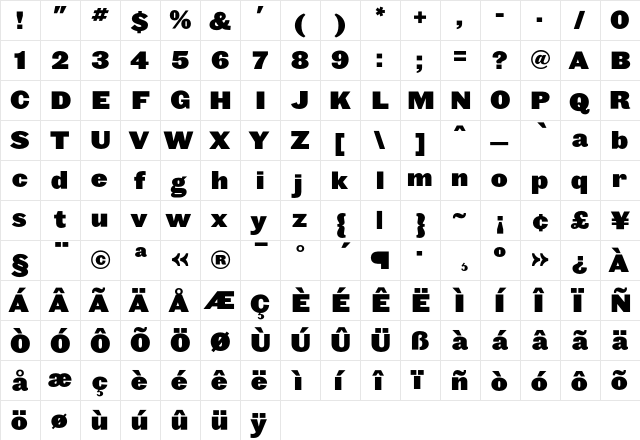
Leviathan HTF-Black Font Preview
Leviathan HTF-Black
Design Context for Leviathan Typeface
Leviathan takes a measured approach to typography — its balanced proportions and neutral character make it a reliable workhorse for both digital and print work.